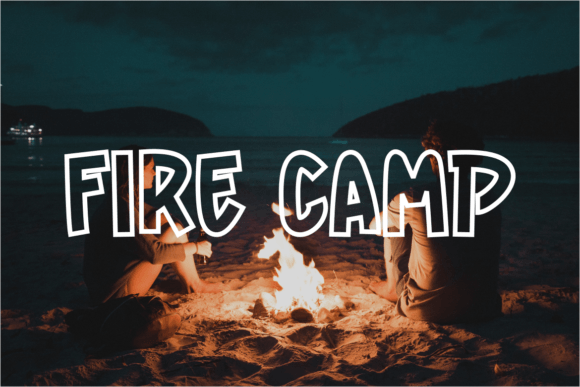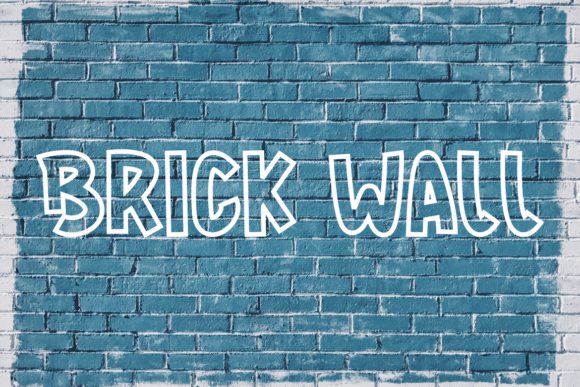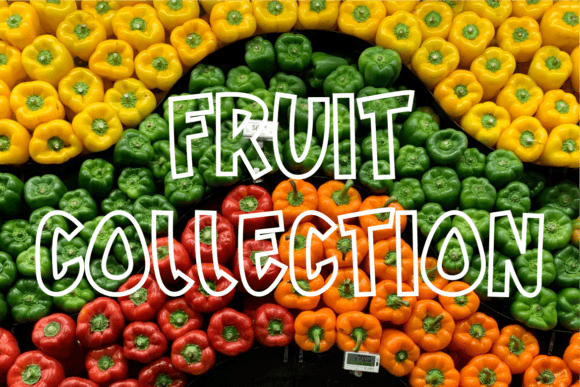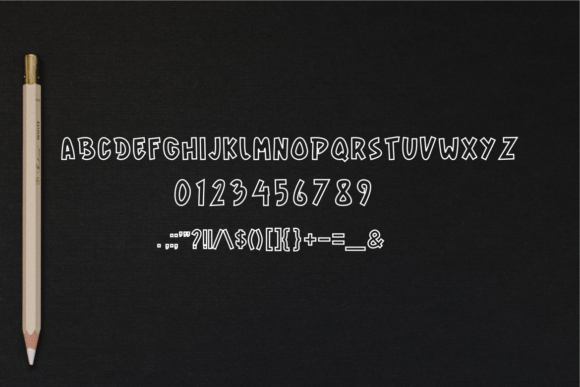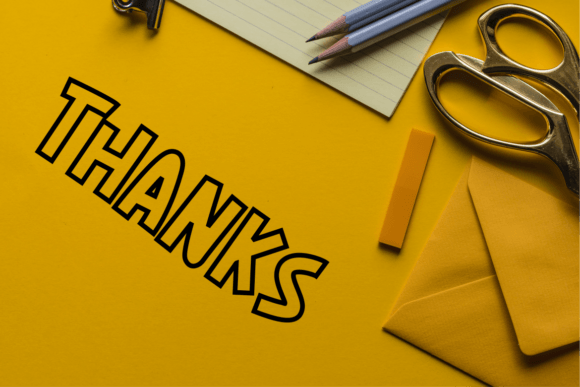
Introduction to Linouto Font
Do you remember that moment when you stumbled upon the perfect design element and your creative project suddenly came to life? For many of us, that moment is what drives us to keep pushing the boundaries of what’s possible. For designers, it’s all about finding that elusive spark that elevates our work from ordinary to extraordinary.
That’s exactly what the Linouto Font offers – a fun and quirky display font that adds a unique touch to any project. Its high-quality design makes it an invaluable resource for creatives looking to inject some personality into their work. With its transparent background, Linouto Font is perfect for adding visual interest to your designs without overpowering the other elements.
Key Features of Linouto Font
- Features a unique and modern design aesthetic
- Perfect for designers and artists looking for a distinctive font for their designs
Honest Review: Linouto Font
I recently had the chance to work with the Linouto Font on a creative project and I must say, it’s been a game-changer. As a designer, I’m always on the lookout for high-quality design resources that can elevate my work, and the Linouto Font definitely delivers.
What works well is its versatility – the font is perfect for a variety of projects, from modern logos to vintage-inspired designs. The Linouto Font is also incredibly easy to customize, making it a great resource for designers who want to add a unique touch to their work.
- ✨ High-quality design that’s perfect for a wide range of projects
- ✨ Easy to customize and adapt to different design styles
One limitation I did encounter is the limited number of font styles available, which may limit its use in certain projects. However, the Linouto Font’s versatility and high-quality design make it a valuable resource for designers looking to add a unique touch to their work.
Overall, I’m really impressed with the Linouto Font and would highly recommend it to designers looking for a high-quality design resource.
Tips for Getting the Most Out of Linouto Font
Use Linouto Font with a transparent background to create unique and eye-catching designs. Experiment with different font sizes and styles to find the perfect fit for your creative project. With Linouto Font’s high quality design, you can create professional-looking designs that stand out.
Linouto Font is perfect for presentations, documents, and creative projects that require a high quality and unique font. With its transparent background and customizable design, Linouto Font is a great resource for designers and non-designers alike.